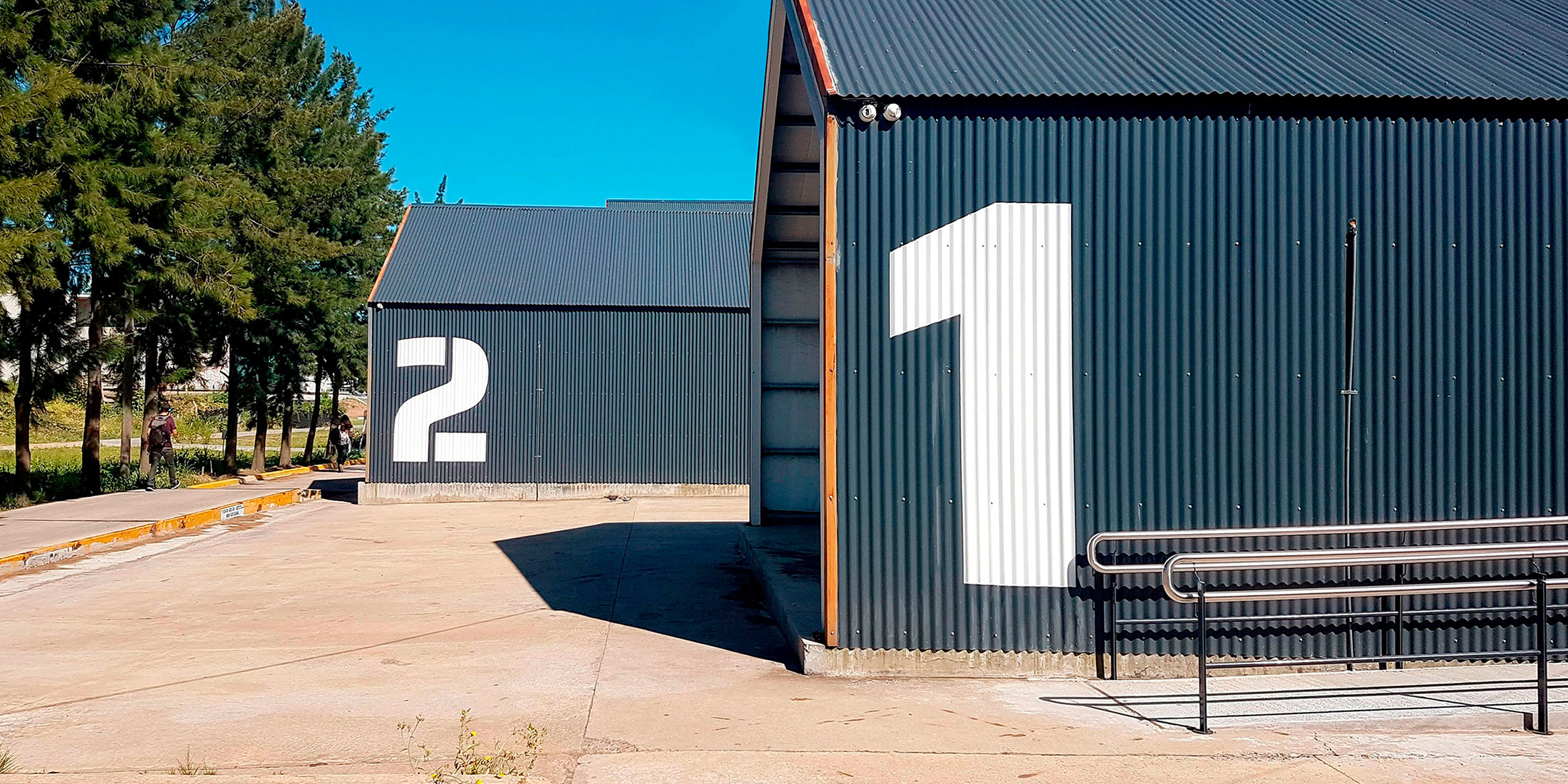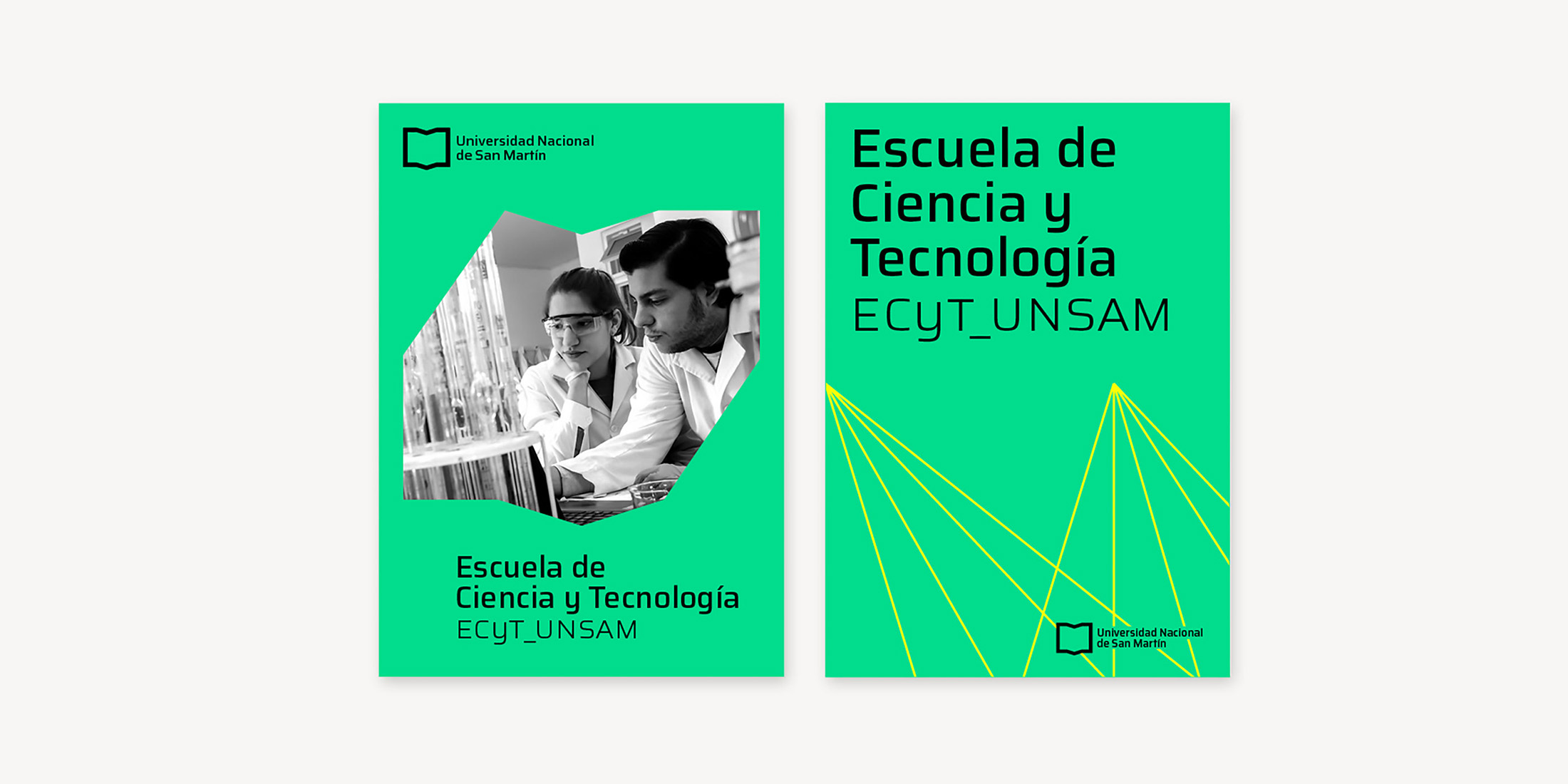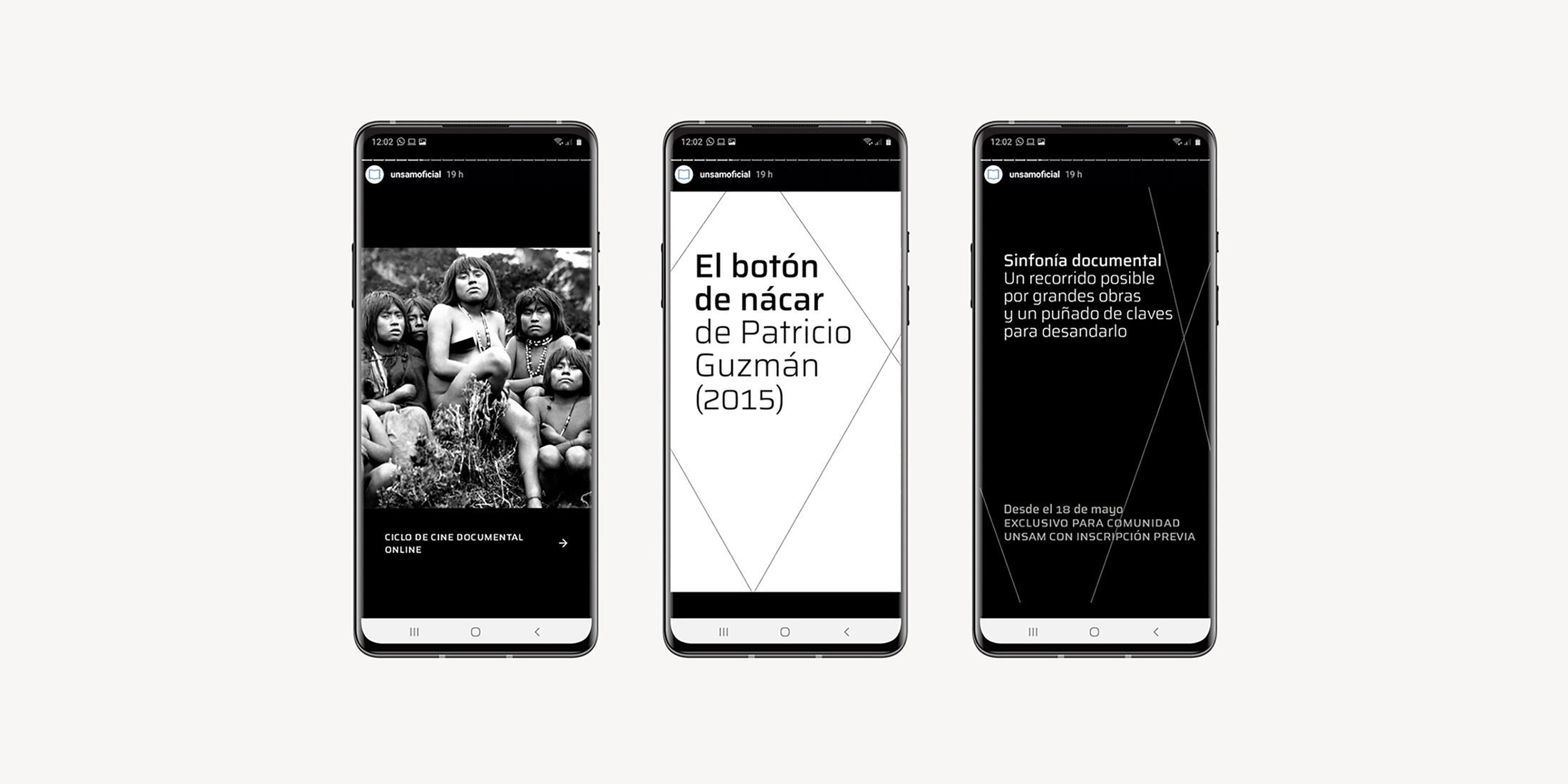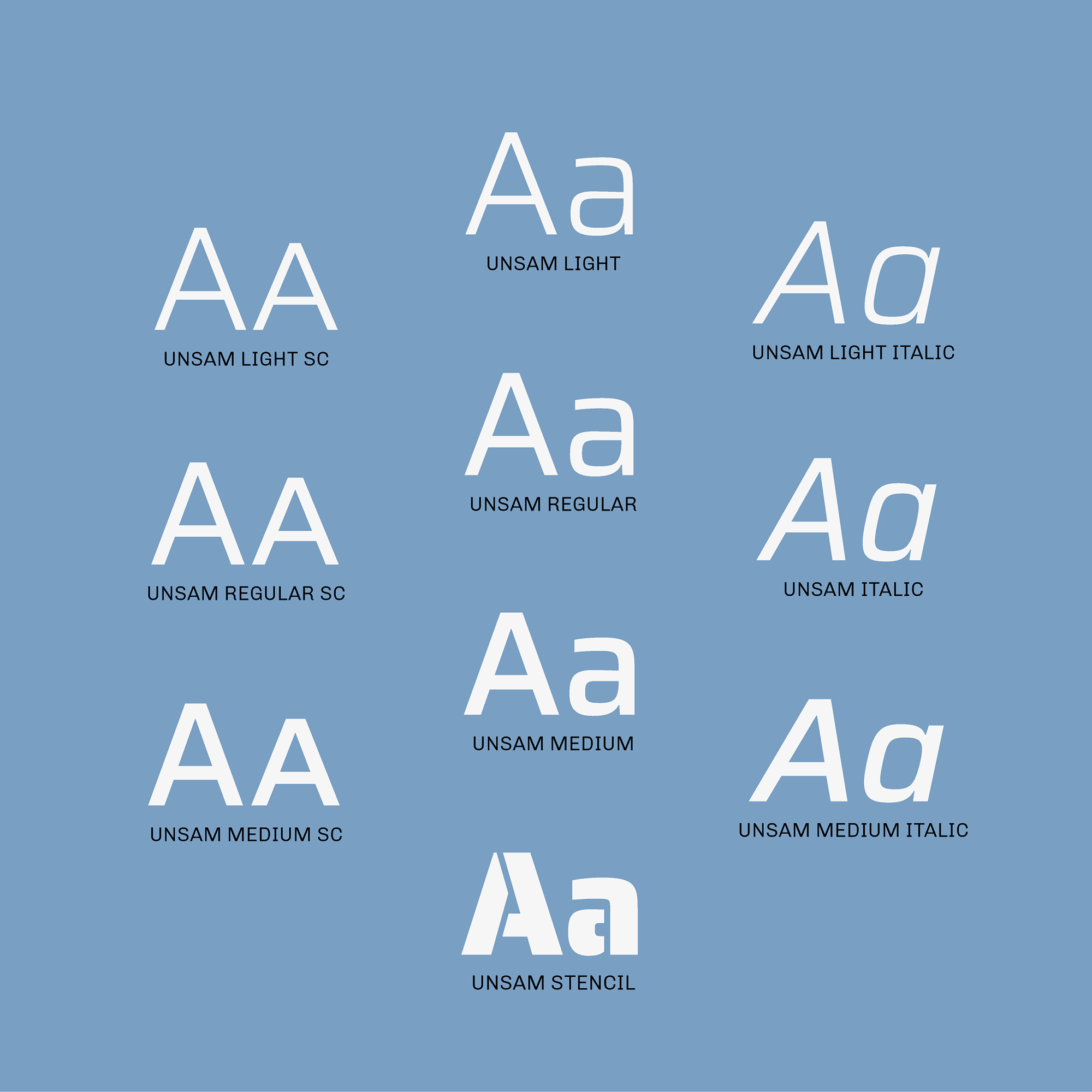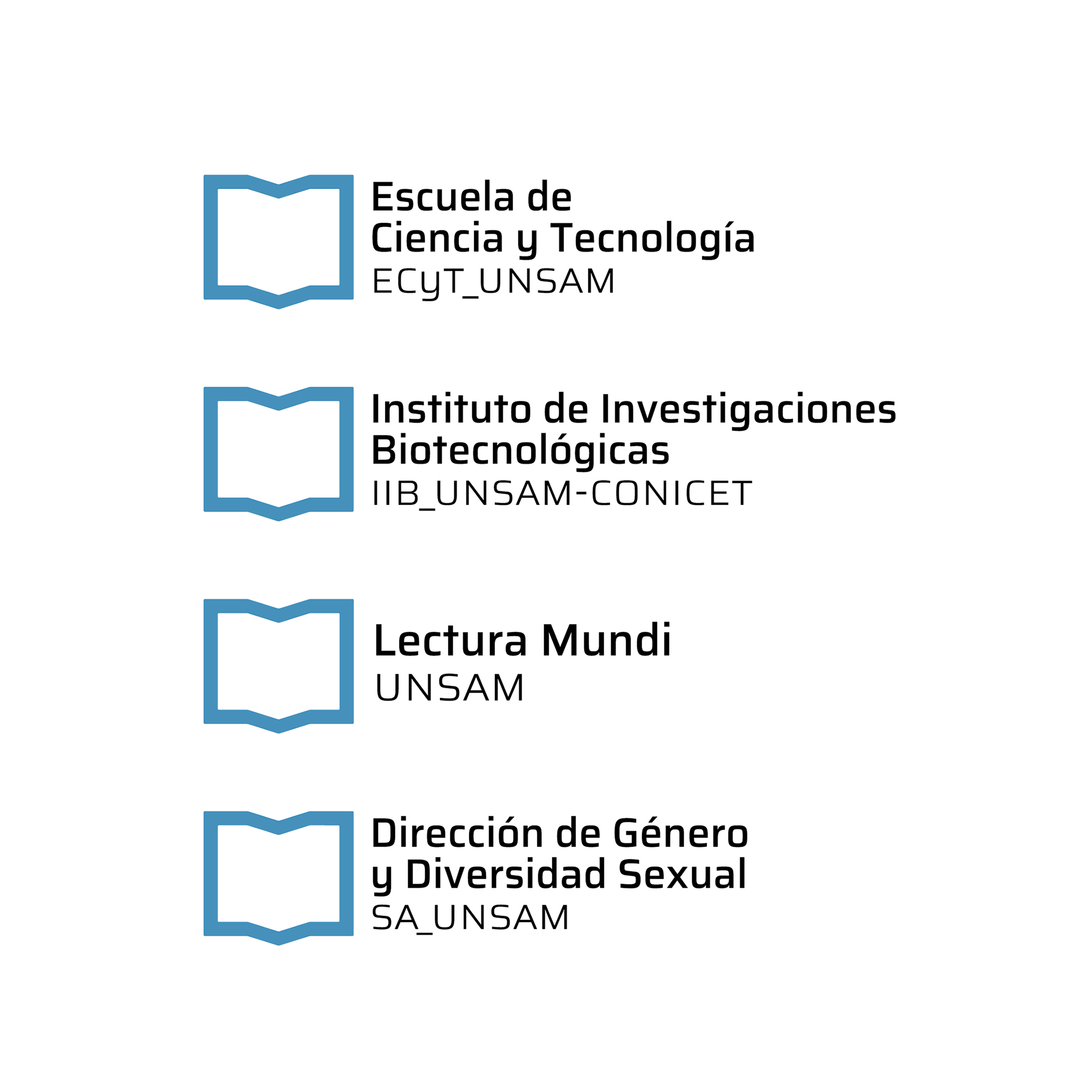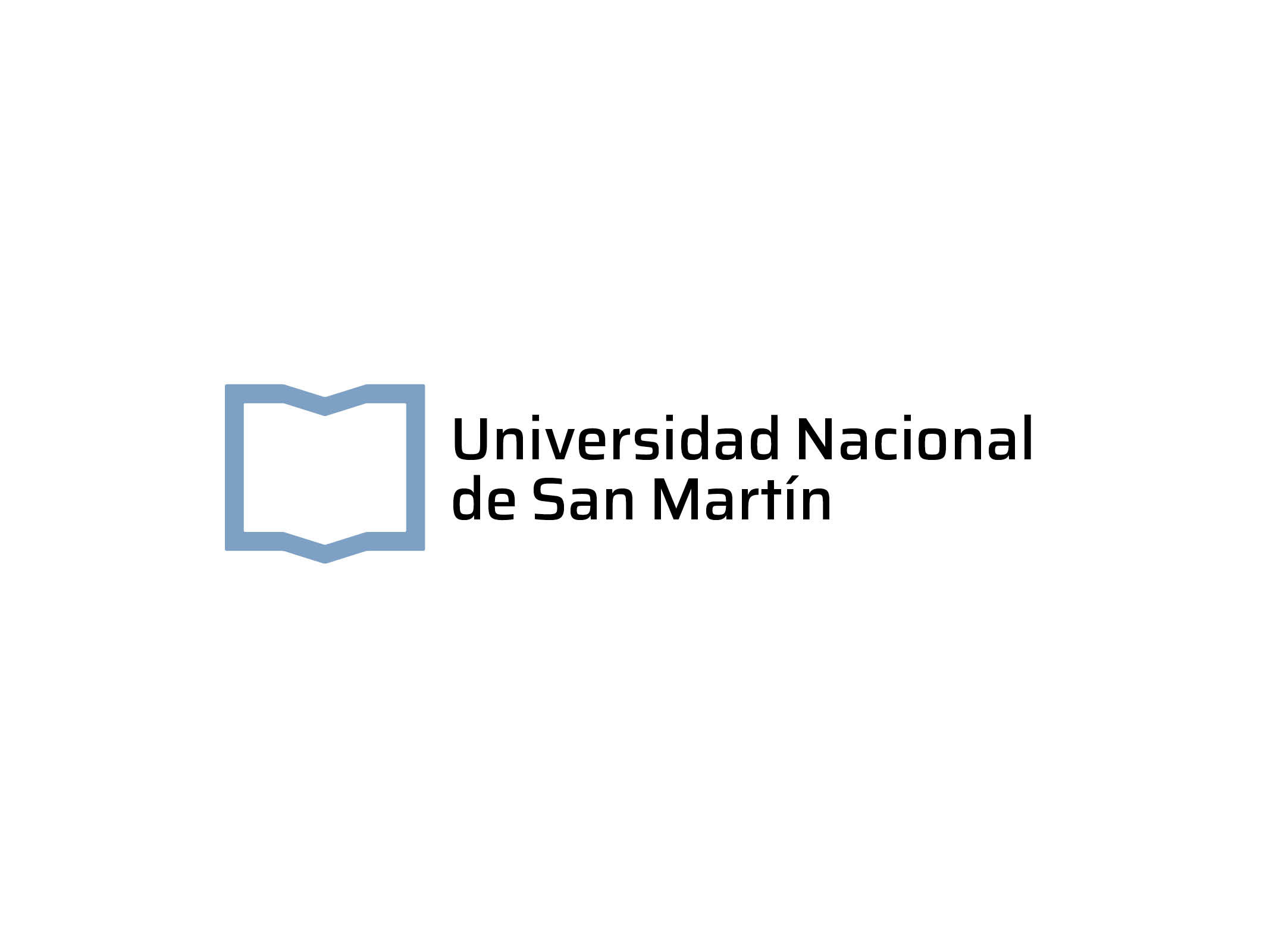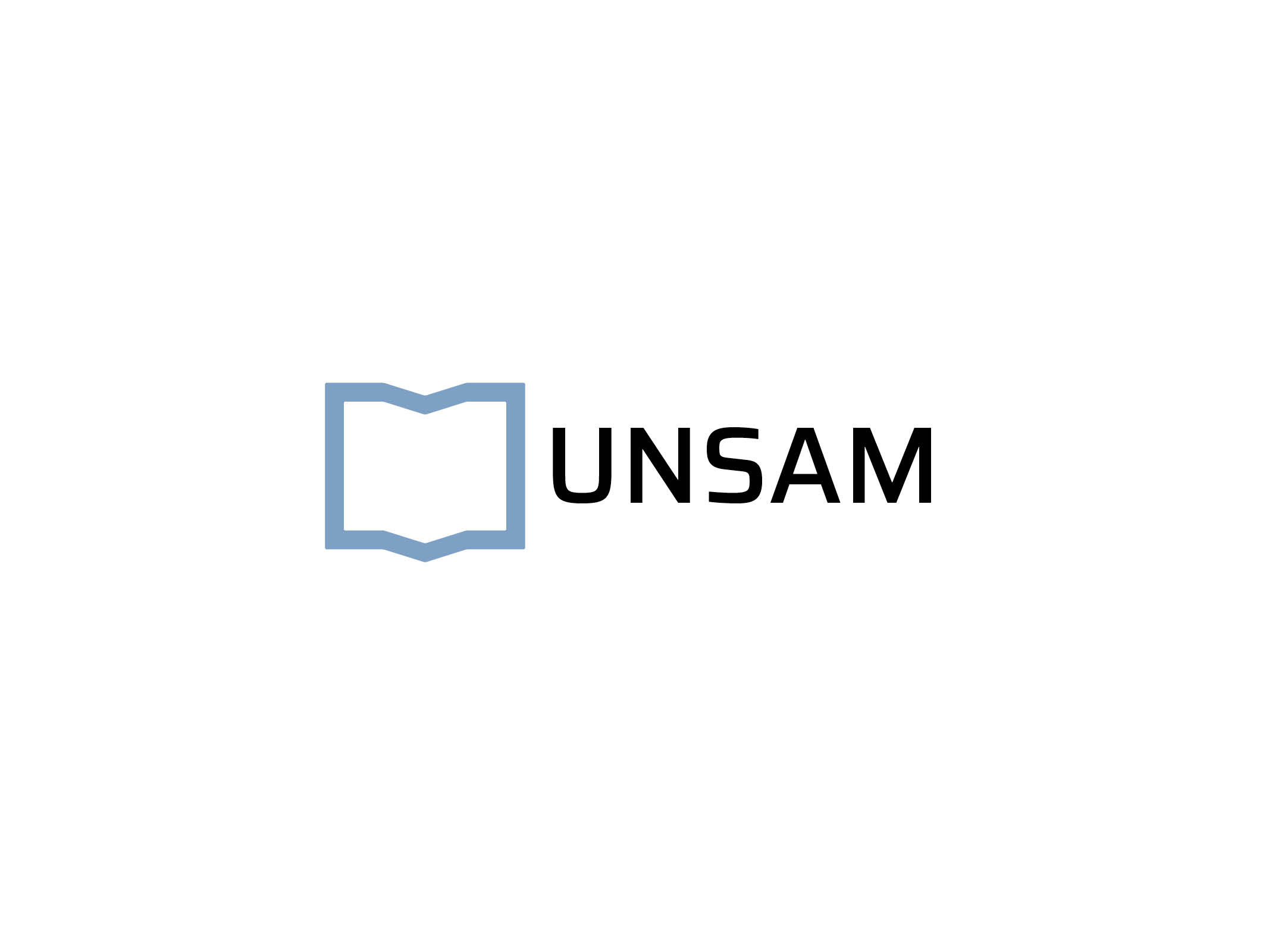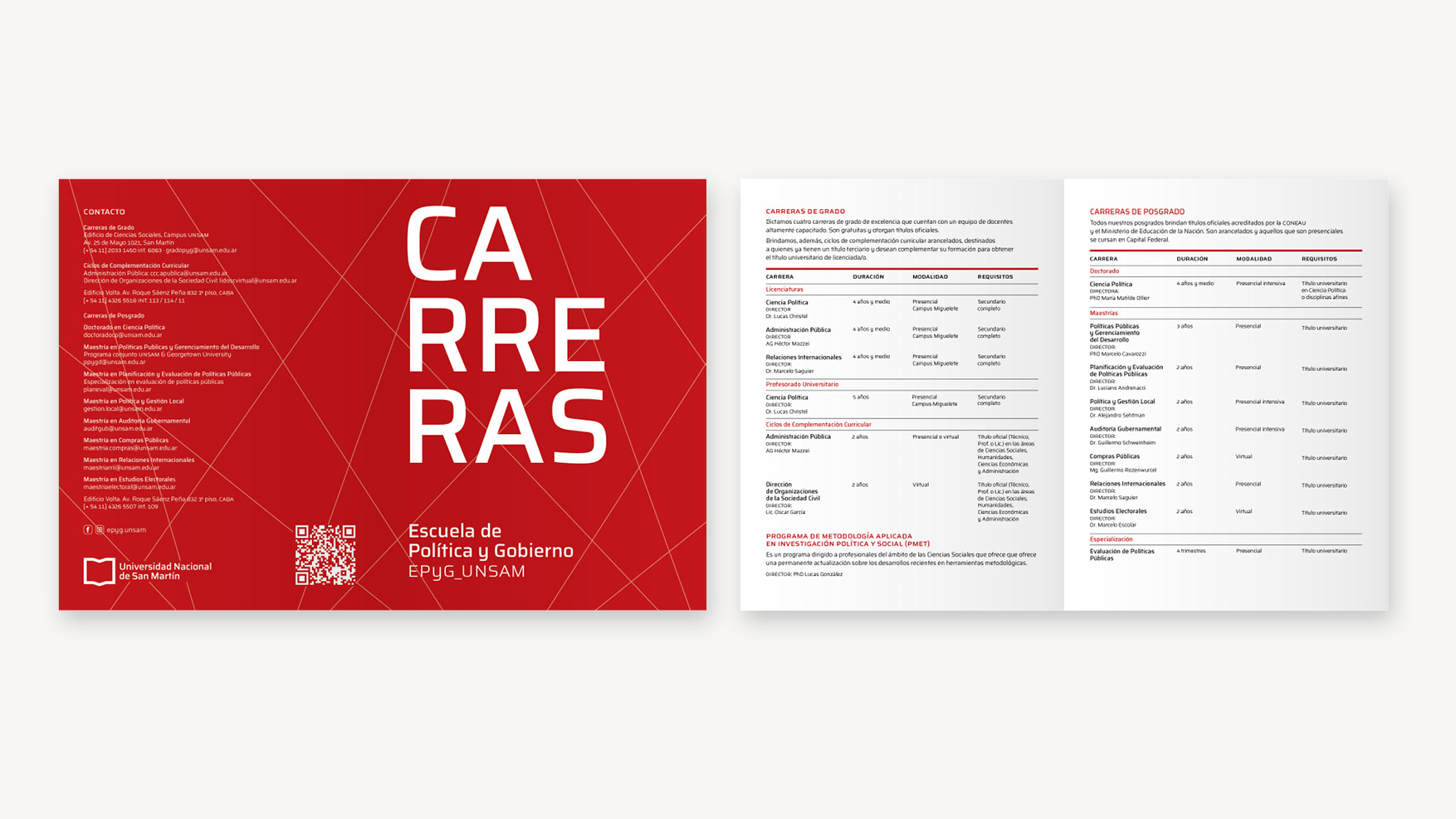
Saira UNSAM
The UNSAM Visual Identity Program reflects the growth and dynamics of Universidad Nacional de San Martín, highlighting attributes of simplicity and austerity.
Saira UNSAM package facilitates the composition of the brands of the different faculties, schools and institutes of the UNSAM. This custom font package was initially produced under a temporary exclusive license and two years later was upgraded to a free and open source SIL/OFL license.